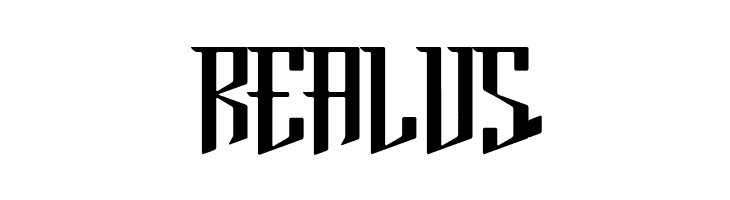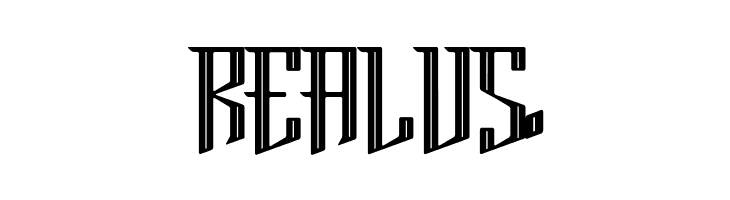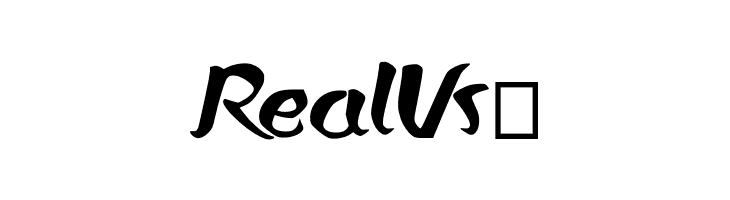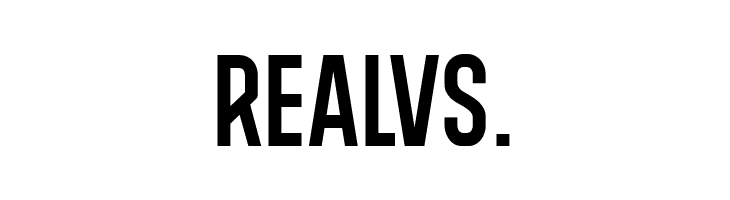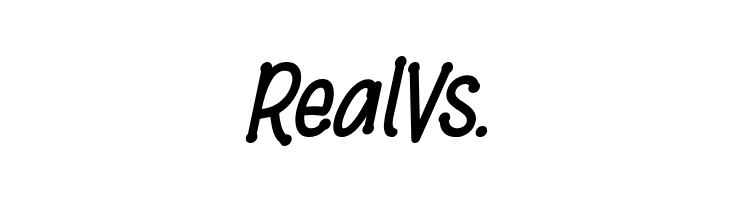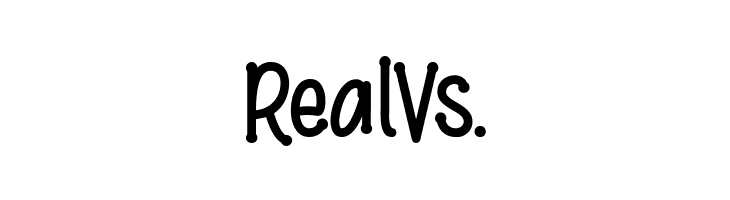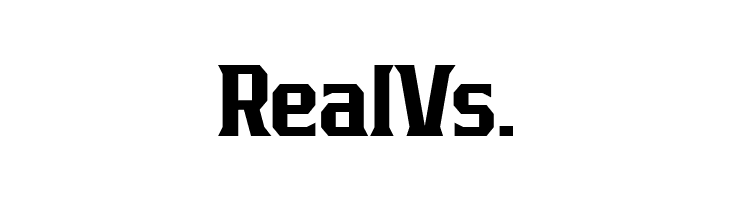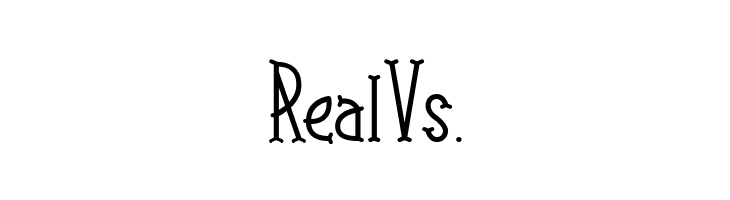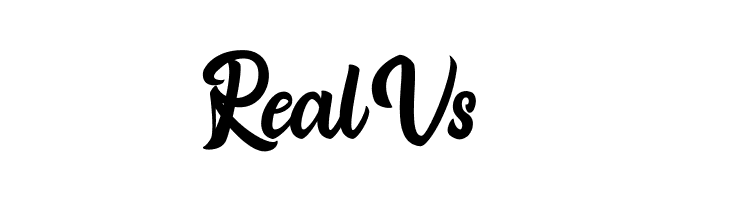
A bold, handwritten font with a brush-like texture and dynamic style.
A bold, elegant script font with flowing, interconnected characters.
A playful, rounded font with a handwritten style and consistent stroke width.
A bold, italic script font with rounded, playful characters.
A bold, energetic font with rounded strokes and a playful style.
A bold, rounded font with a playful and dynamic style.
A bold, playful script font with a handwritten feel and dynamic style.
A bold, calligraphic font with dynamic curves and a modern twist.
A bold, rounded font with a strong, playful presence.
A bold, handwritten script font with dynamic and fluid strokes.
A bold, modern sans-serif font with geometric influences and uniform stroke width.
A bold, distressed font with a gritty, urban street art style.
A bold, distressed font with a gritty, urban aesthetic.
A bold, dynamic font with vintage flair and strong visual impact.
A bold, rough-textured font with a vintage, hand-crafted feel.
A bold, distressed font with a vintage, stamp-like appearance.
A bold, angular serif font with a vintage yet modern appeal.
A bold, geometric font with a vintage industrial feel.
A bold blackletter font with sharp, angular lines and gothic detailing.
A bold blackletter font with intricate, medieval-inspired detailing.
A bold, decorative blackletter-style font with intricate uppercase and ornate lowercase characters.
A modern, geometric sans-serif font with uniform stroke widths.
A classic serif font with high contrast and elegant, elongated characters.
A bold, condensed sans-serif font with a modern, professional appearance.
A bold, expressive handwritten font with brush-like strokes.
A playful, casual handwritten font with flowing strokes and a whimsical style.
A playful, handwritten font with a dynamic and informal style.
A bold, modern inline font with sharp angles and geometric structure.
A modern cursive font with elegant, flowing strokes.
A bold, angular font with a modern, geometric style.
A playful, casual handwritten font with smooth, rounded edges.
A whimsical, decorative font with elongated serifs and a playful style.
A bold, geometric typeface with clean lines and sharp angles.